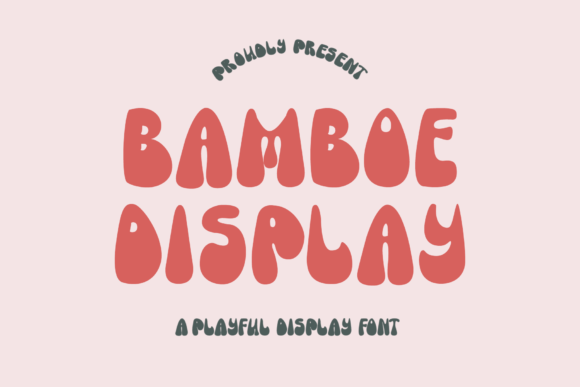
The Perfect Font for a Bouncy Brand
You’ve finally landed that dream design project, and you’re bursting with ideas. You envision a vibrant, energetic brand that captures the hearts of your audience. But, as you sit in front of your computer, staring at a blank canvas, you realize one crucial element is missing – the perfect font.
That’s where the Bamboe Display Font comes in. This playful and bouncy display font is designed to add a fun and exciting feel to any project. With its unique character and versatility, it’s the perfect addition to your design arsenal. Whether you’re working on a logo, a social media campaign, or a marketing brochure, the Bamboe Display Font is sure to bring a smile to your client’s face and set your brand apart from the rest.
Bamboe Display Font Key Features
- Unique Characteristics: Hand-drawn design with a natural, organic feel and a wide range of expressive characters
Bamboe Display Font Review
Overall, I think Bamboe Display Font is a solid choice for those looking for a display font with a unique, hand-drawn feel. ✨ The font’s organic, playful lines and rounded edges give it a friendly, approachable vibe that’s perfect for headlines, titles, or other display text.
- ✨ Unique, hand-drawn feel that sets it apart from more common display fonts
- ✨ Wide range of weights and styles, including bold and italic options
- ✨ Excellent legibility, even at small sizes
- ⚠️ Limited language support, which may be a concern for those working on multilingual projects
- ⚠️ Some of the more delicate lines may not scan well at low resolutions or on small screens
- ⚠️ Not as versatile as some other display fonts, which may limit its use in certain contexts
Overall, I think Bamboe Display Font is a great choice for designers who want a unique, eye-catching display font. While it may not be perfect, its strengths far outweigh its weaknesses, and it’s definitely worth considering for your next project.
Tips for Getting the Most Out of Bamboe Display Font
Use Bamboe Display Font for headings and titles to add a touch of elegance to your designs.
Combine Bamboe Display Font with other fonts to create a unique and eye-catching visual style.
Experiment with different font sizes and colors to create a dramatic effect.
Bamboe Display Font is ideal for:
Event branding and marketing materials.
Graphic design and visual identity projects.
Alternatives to Bamboe Display Font
Playfair Display is an elegant, luxurious serif font perfect for high-end branding and advertising. It features intricate details and ornate flourishes, making it ideal for creating a sense of sophistication and refinement. When to use: Luxury brands, high-end products, and special occasions. Compared to Bamboe Display Font: While both fonts are elegant, Playfair Display is more ornate and luxurious, making it better suited for high-end branding.
Didot is a classic, refined serif font with a long history of use in high-end typography. It features a clean, elegant design with a subtle flair, making it perfect for creating a sense of sophistication and elegance. When to use: Luxury brands, high-end products, and formal events. Compared to Bamboe Display Font: Didot is more refined and subtle, making it a better choice for situations where a more understated elegance is desired.
Abril Fatface is a bold, elegant serif font with a distinctive flair. It features a robust, confident design that is perfect for creating a sense of drama and sophistication. When to use: High-end branding, luxury products, and special events. Compared to Bamboe Display Font: Abril Fatface is bolder and more dramatic than Bamboe Display Font, making it a better choice for situations where a more attention-grabbing font is desired.